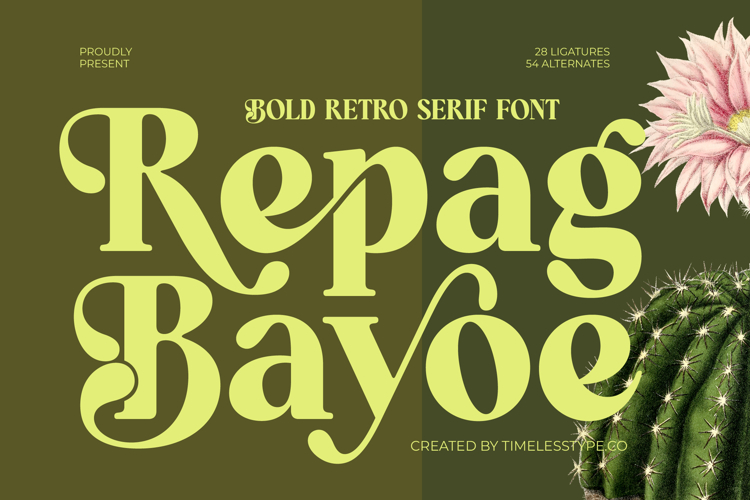
Repag Bayoe - Bold Restro Serif Font
Captivate your audience with the undeniable charm of Font Repag Bayoe - Bold Restro Serif Font Serif Display. This exquisite display serif font seamlessly blends a bold, retro aesthetic with refined, contemporary elegance. Its distinctive character and timeless appeal are engineered to make an immediate, impactful statement, ensuring your typography stands out with unparalleled sophistication.
Unlocking unparalleled design flexibility, Font Repag Bayoe - Bold Restro Serif Font Serif Display is meticulously crafted with elegant curves and high-contrast strokes that exude vintage glamour. Further enhancing its utility are extensive OpenType features, including 28 ligatures and 54 alternates, providing designers with immense creative freedom to craft truly distinctive and personalized visual narratives.
Elevate your projects with the inherent prestige of Font Repag Bayoe - Bold Restro Serif Font Serif Display. It is perfectly suited for luxury branding, high-end editorial design, exclusive packaging, elegant invitations, and magazine titles seeking a touch of bold elegance. With its extensive multilingual support, Font Repag Bayoe - Bold Restro Serif Font Serif Display adapts seamlessly across global markets, making it incredibly versatile for international projects.